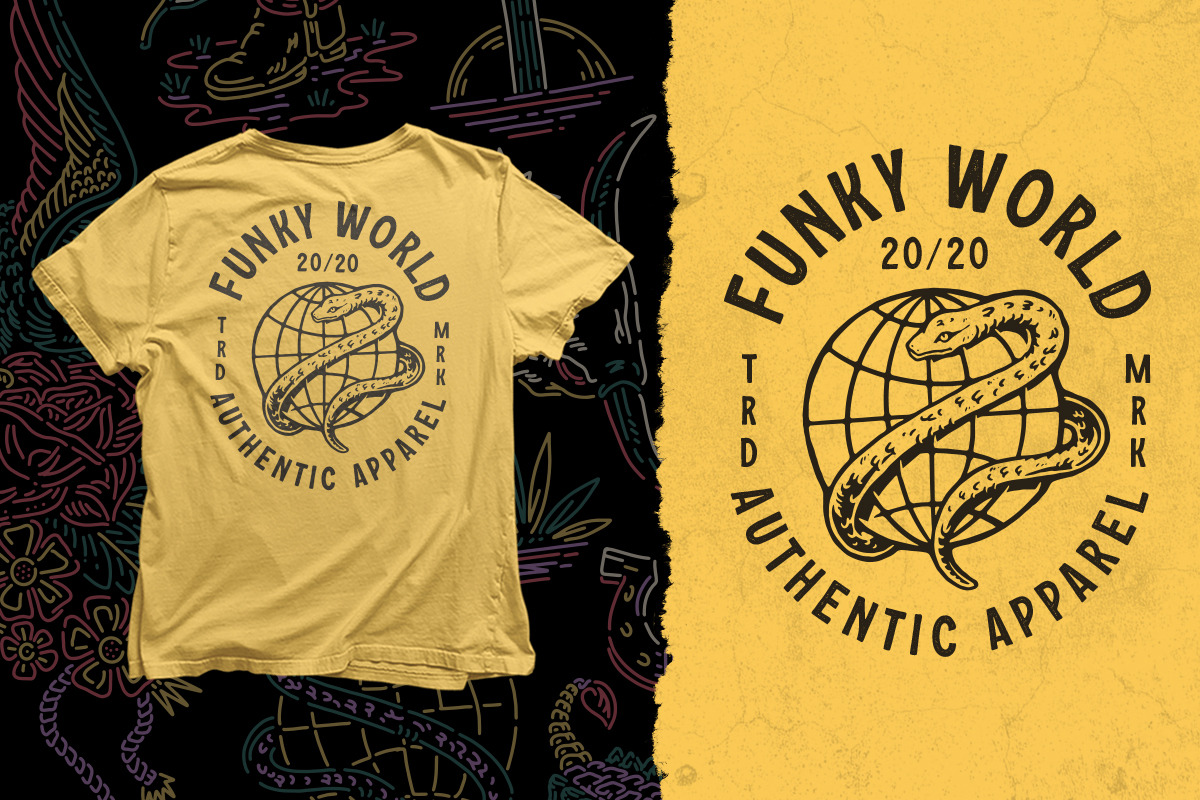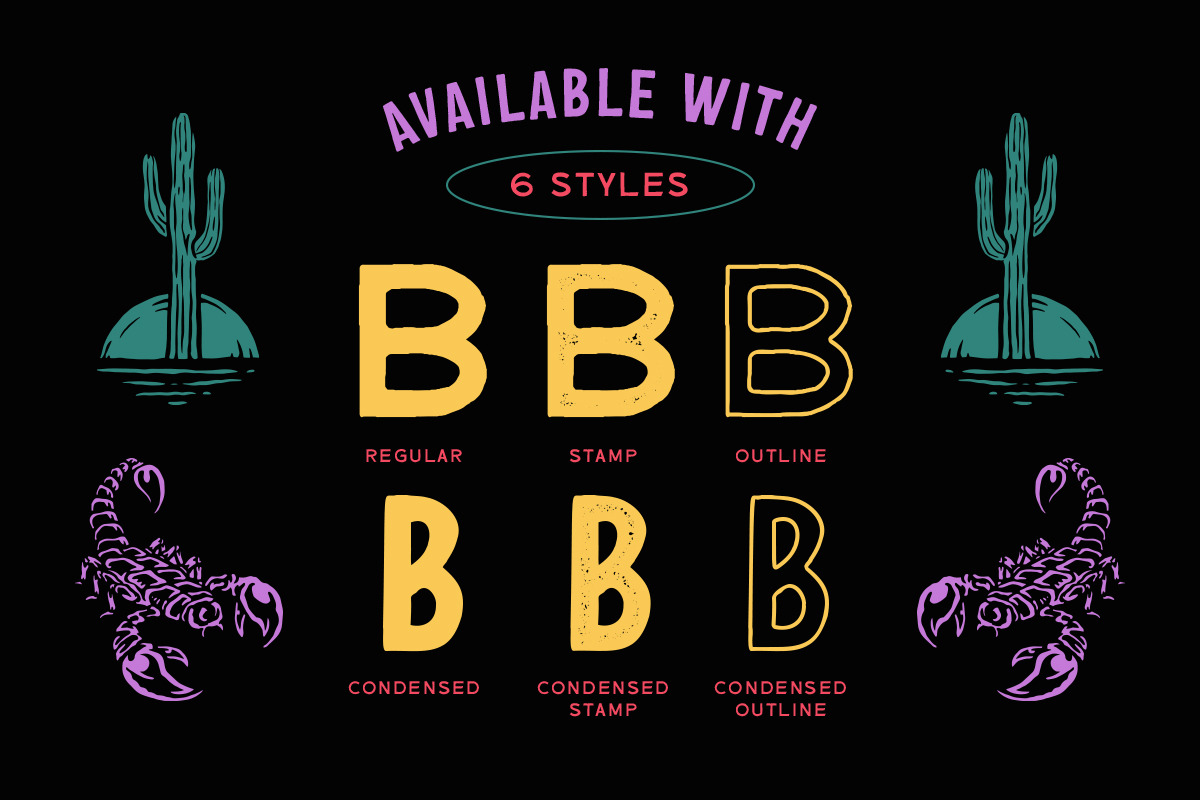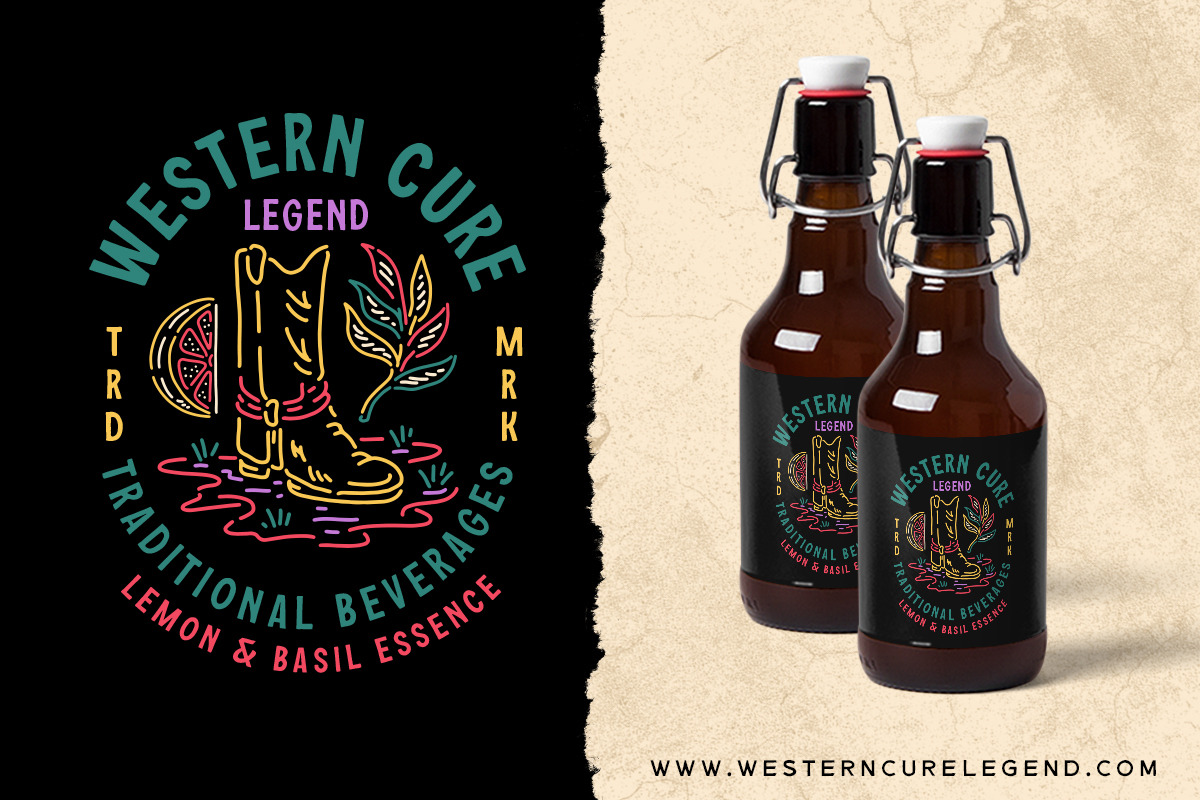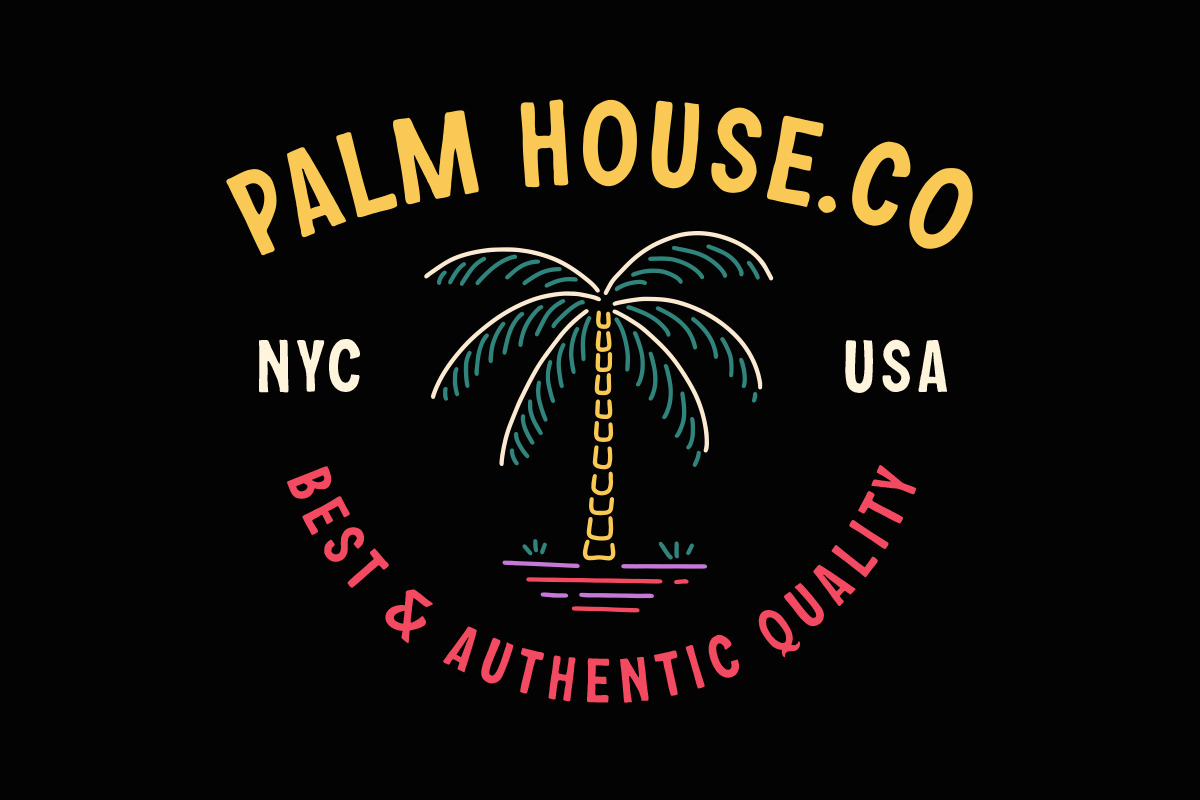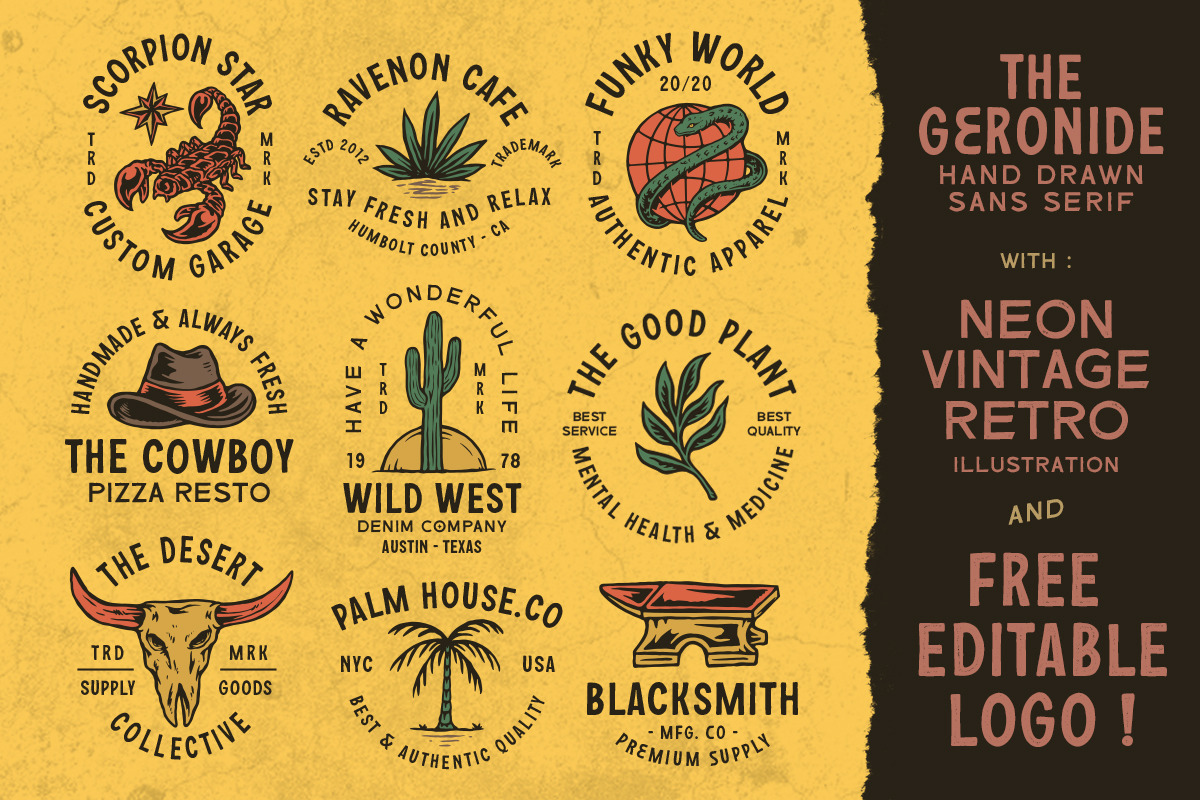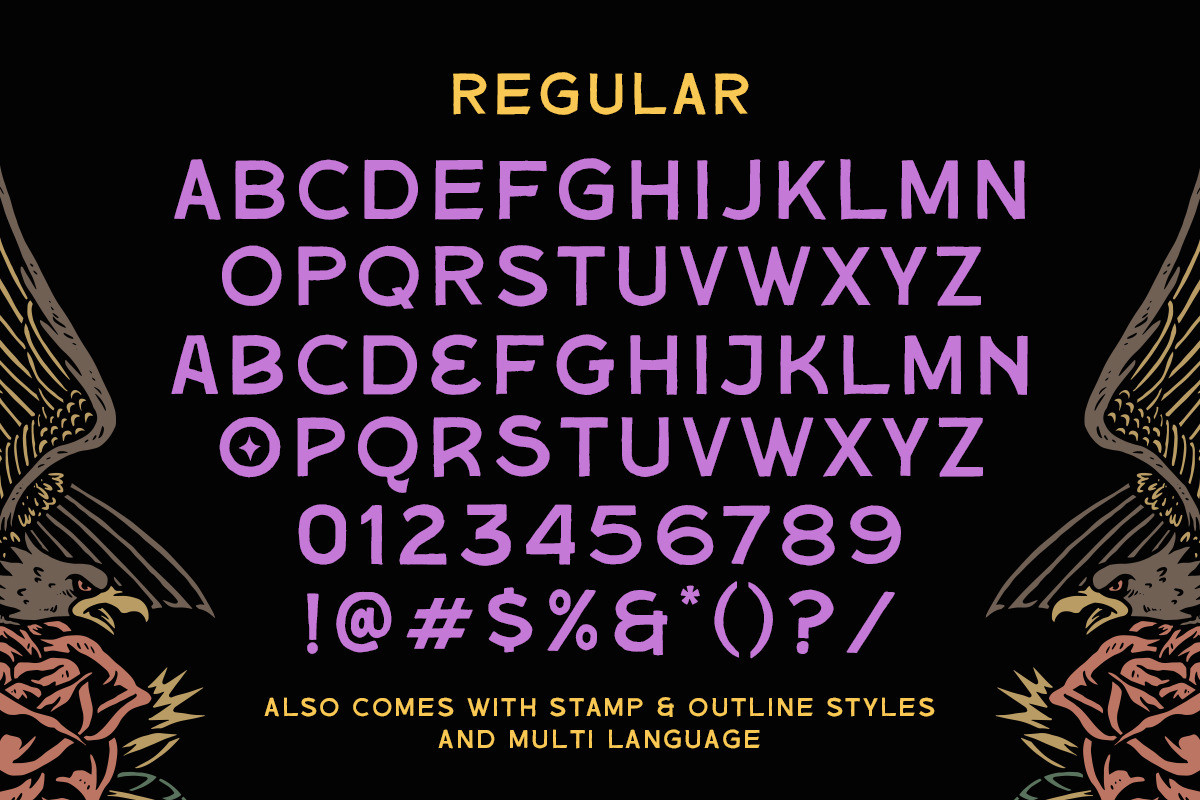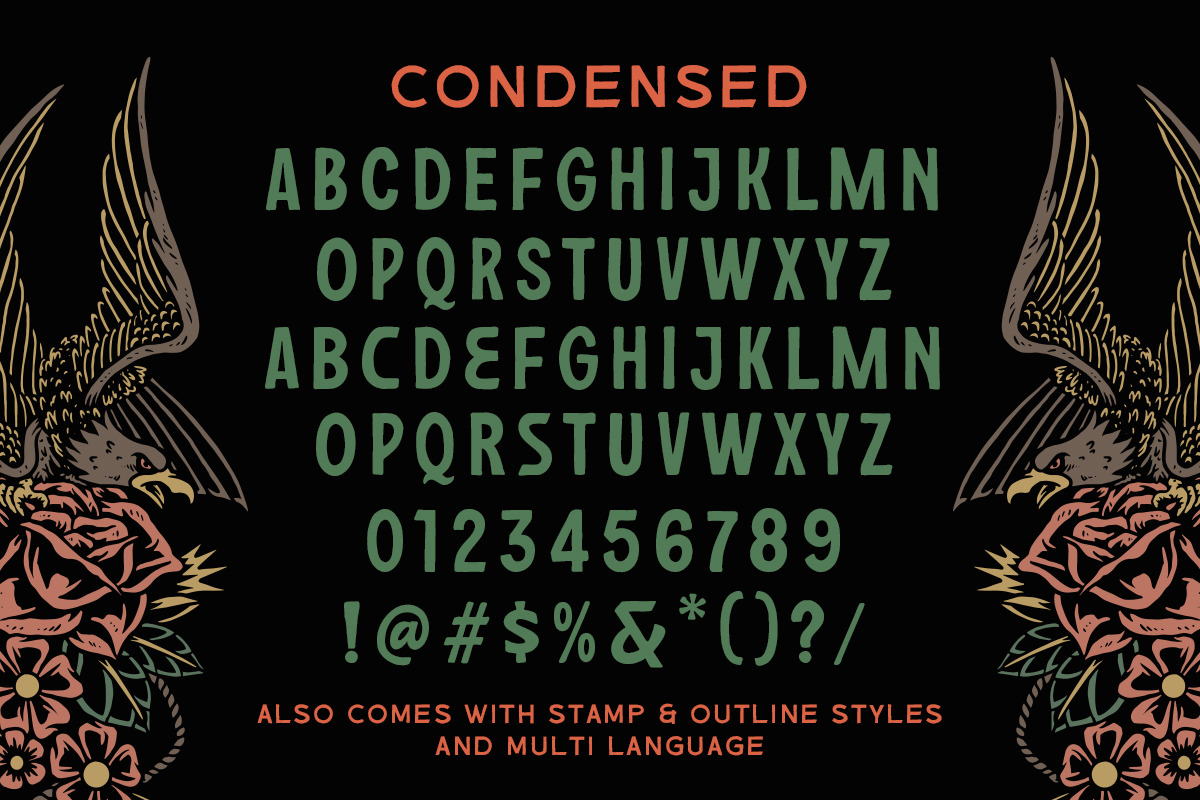
The Geronide - Hand Drawn Sans Serif
Introducing, The Geronide - A hand drawn sans serif. This unique font has 4 styles : regular, condensed, stamp and outline. Very suitable for you who like to create vintage design theme, especially with the amazing and detailed illustration as bonus! This font perfectly made to be applied especially in logo, and the other various formal forms such as invitations, labels, logos, magazines, books, greeting / wedding cards, packaging, fashion, make up, stationery, novels, labels or any type of advertising purpose.
- 4 styles font (regular, condensed, stamp and outline)
- 14 neon vintage retro illustration
- 9 editable logo templates